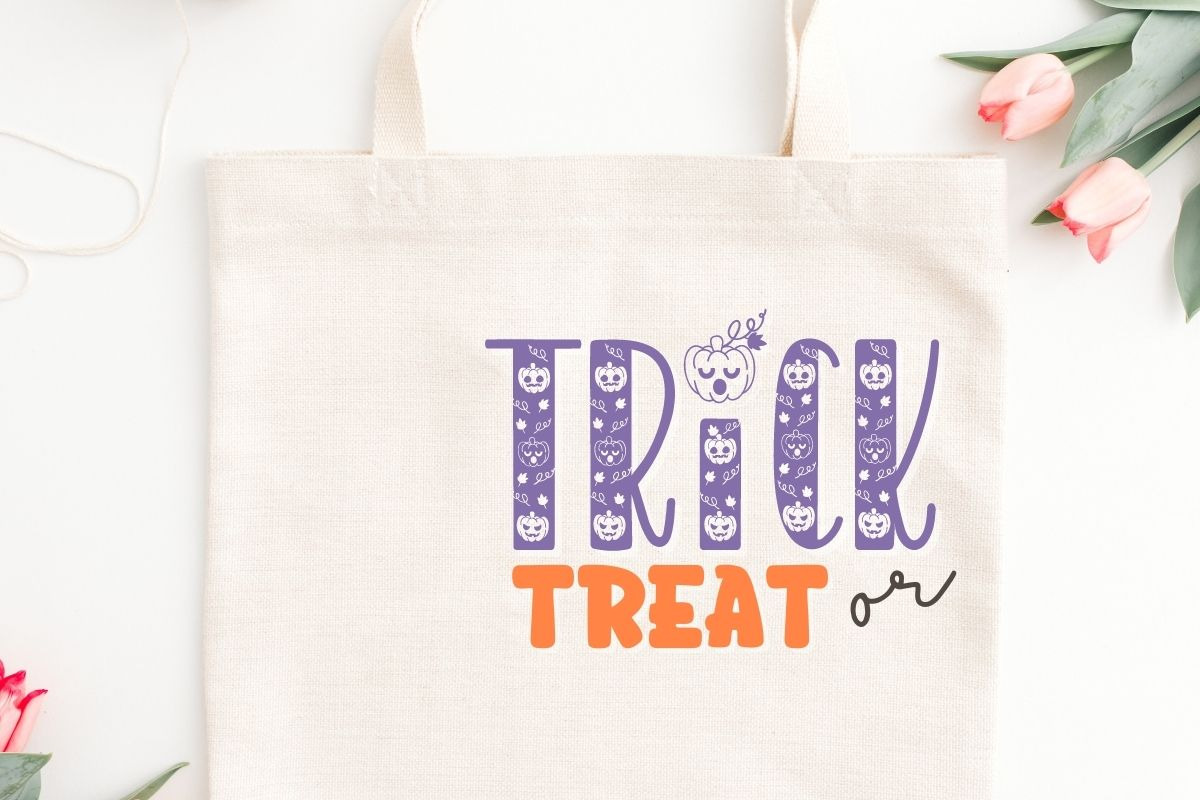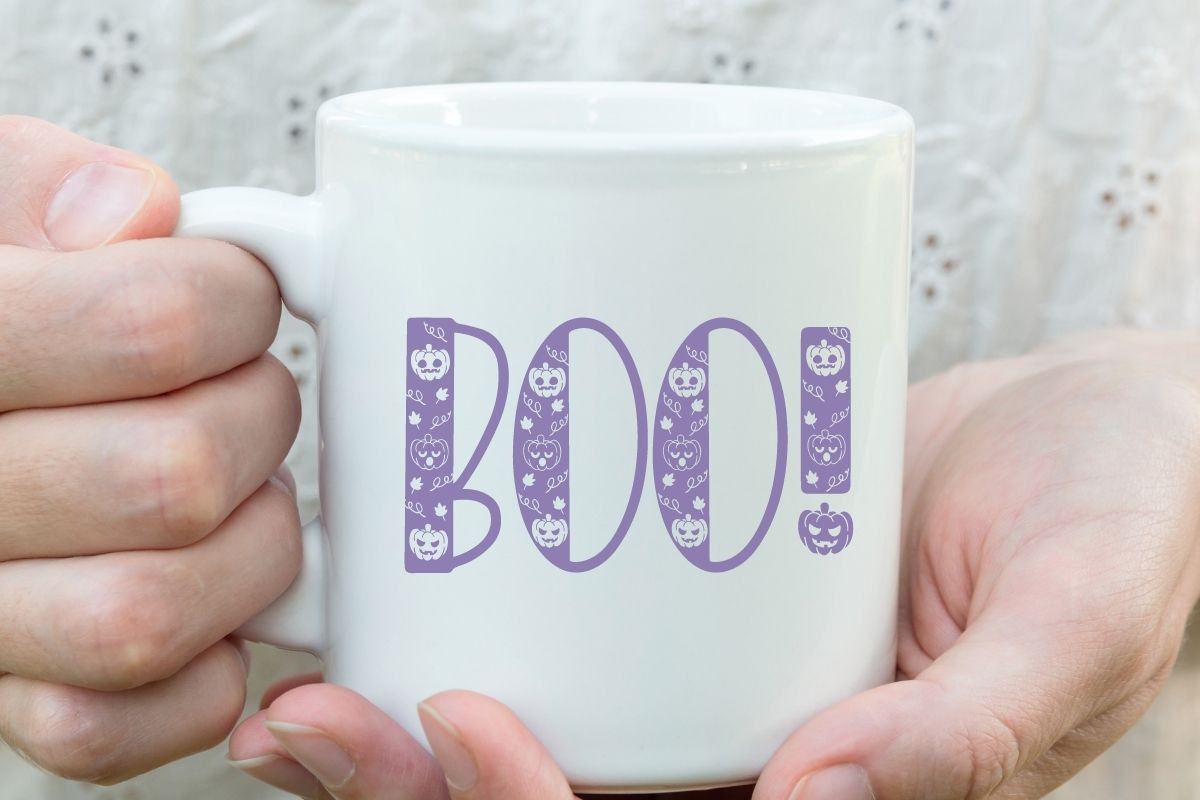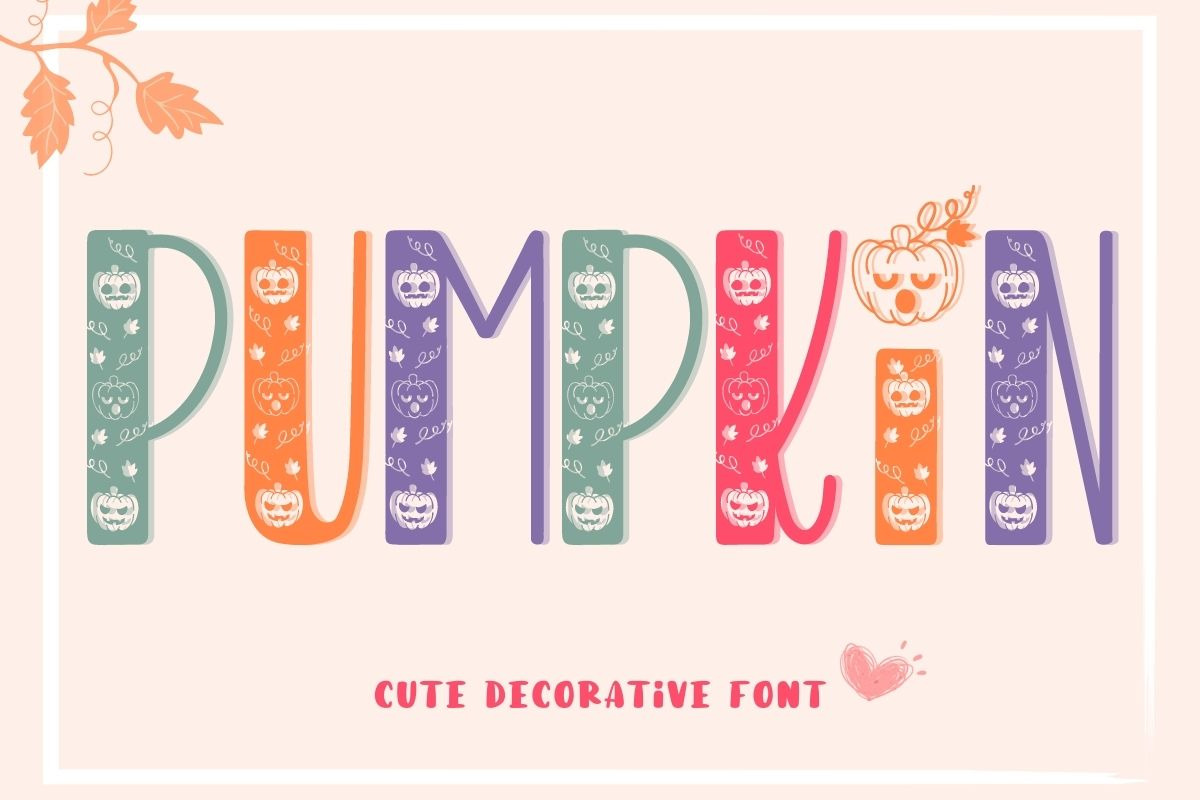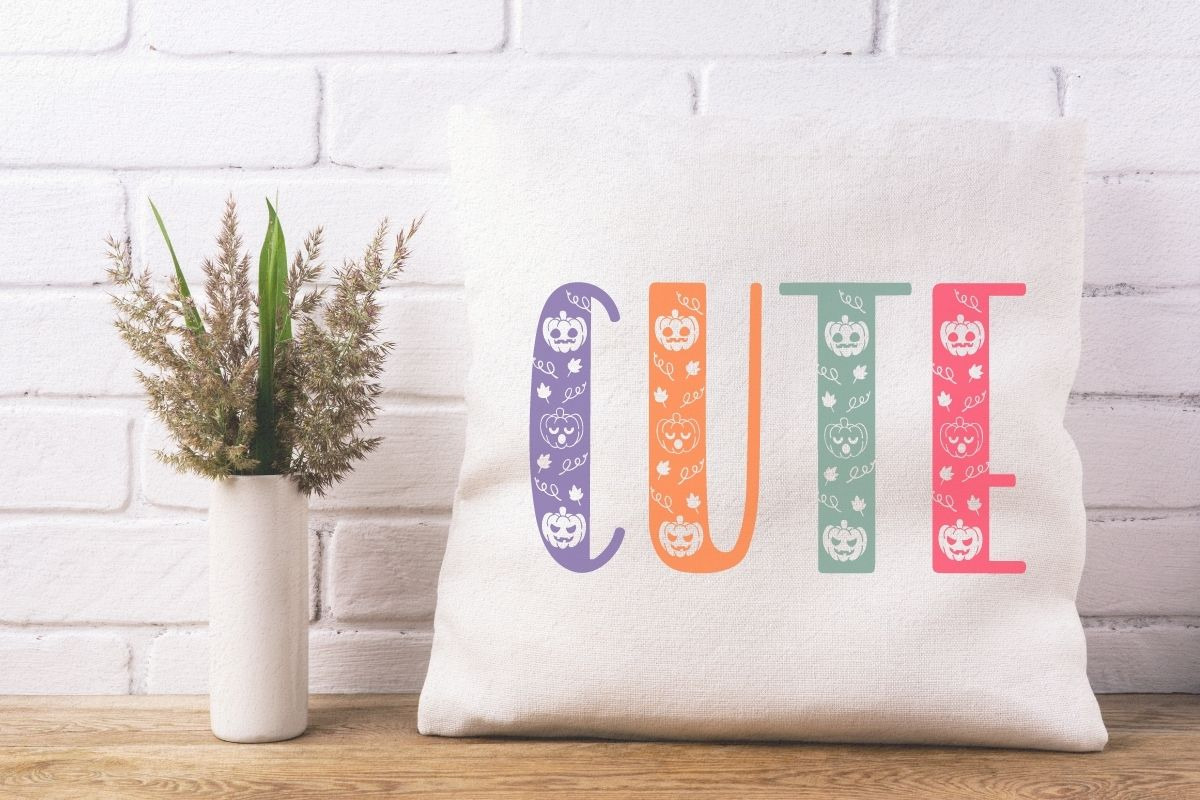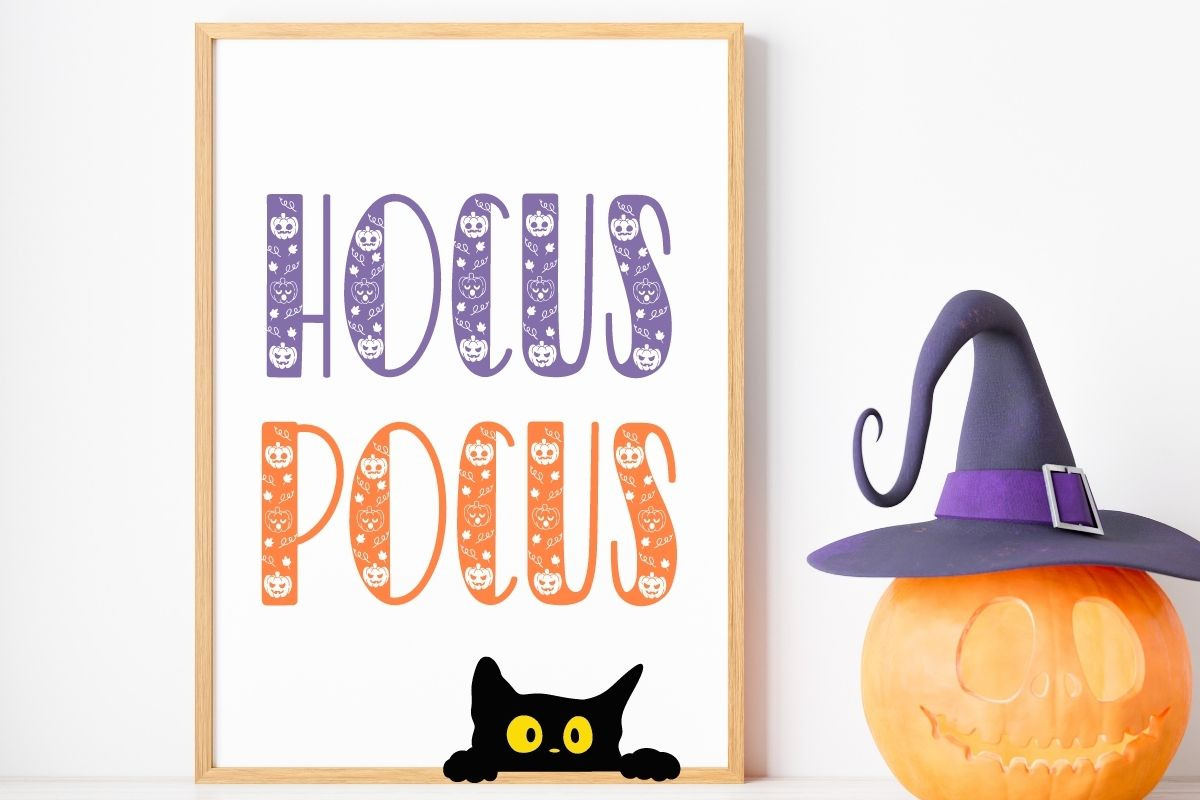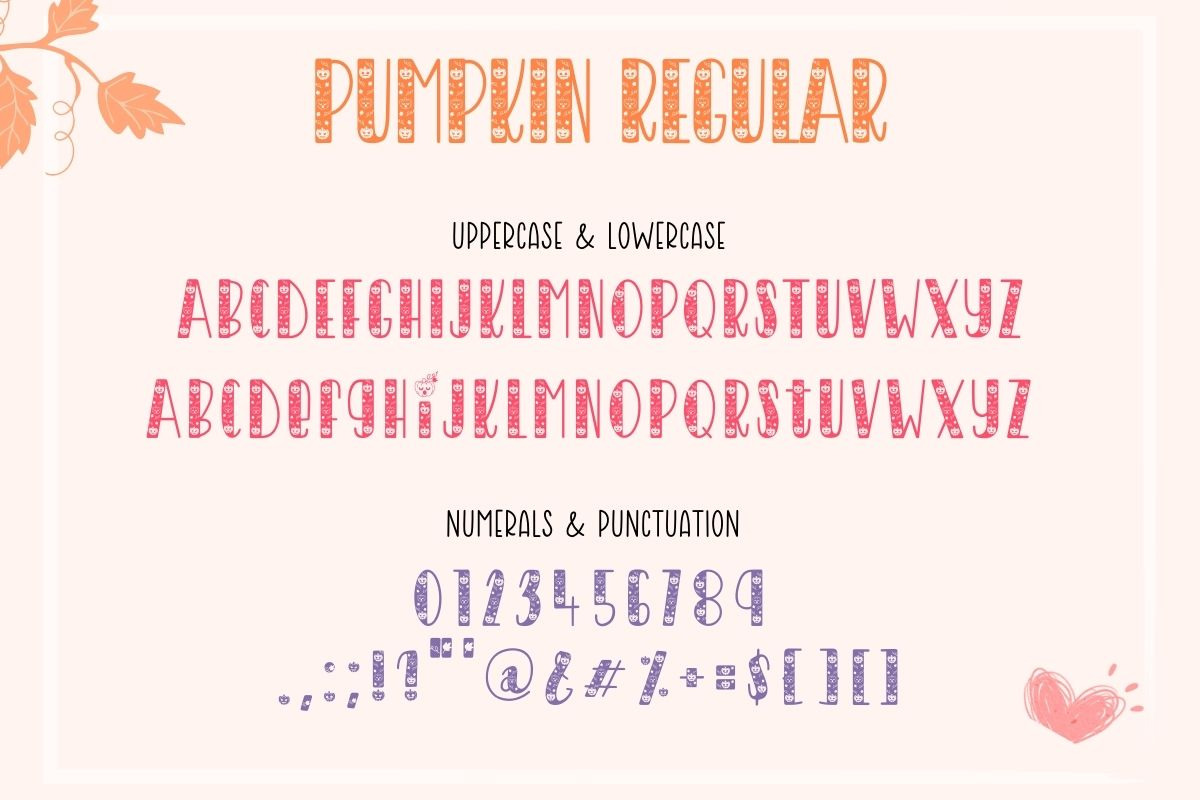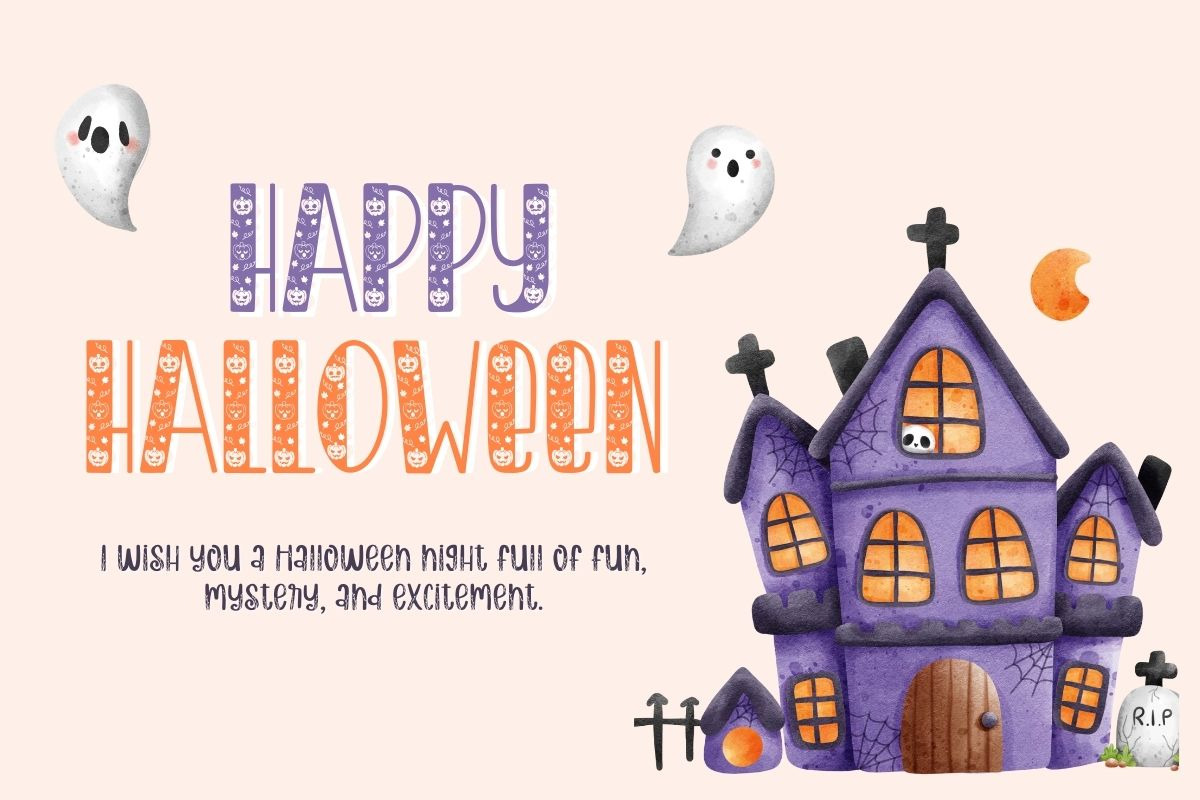
Pumpkin - Cute Decorative Font
Introducing "Pumpkin Font" a charming decorative font that effortlessly infuses your projects with a delightful autumn vibe. This unique font is a perfect blend of adorable pumpkin silhouettes and handcrafted typography, resulting in a design that's both playful and versatile.
This font is perfect for a wide pool of design ideas and products such as banners, mugs, cards, shirts, stationery, social media posts, and more!